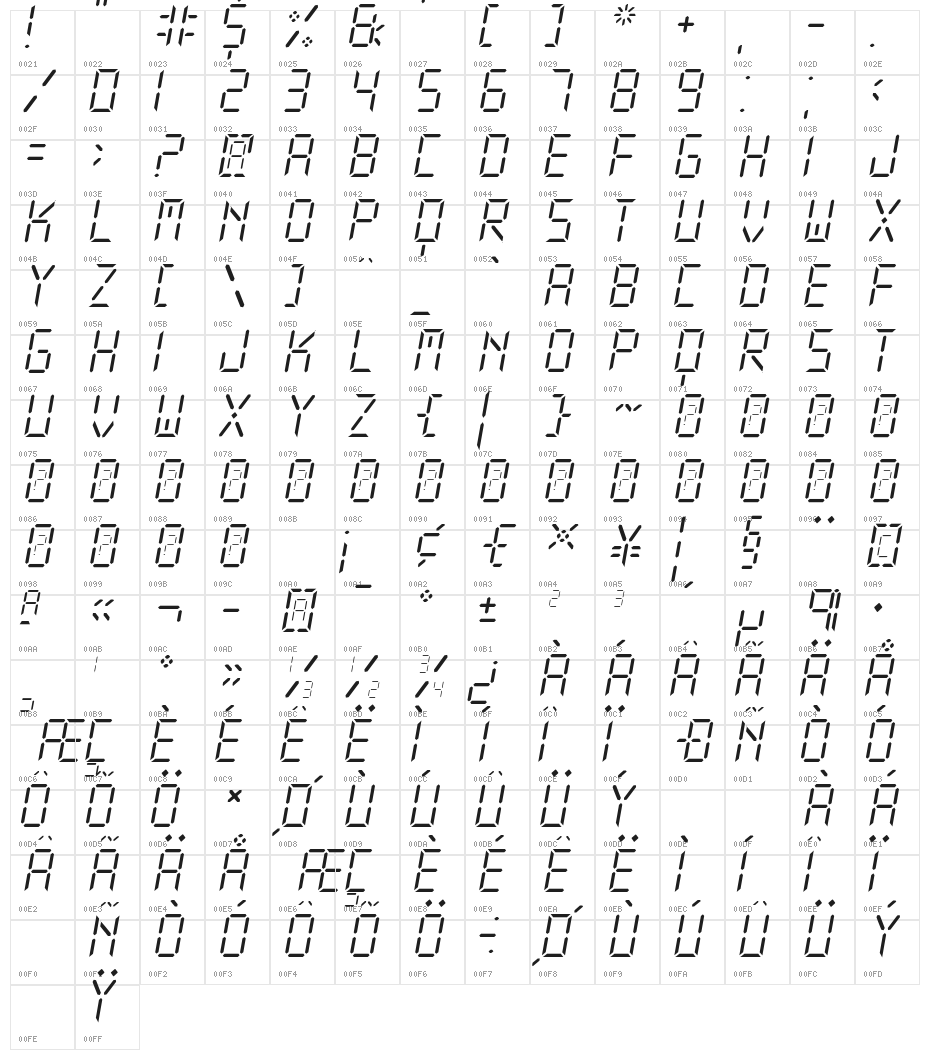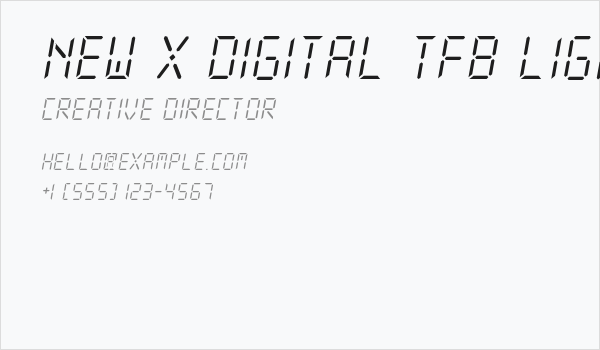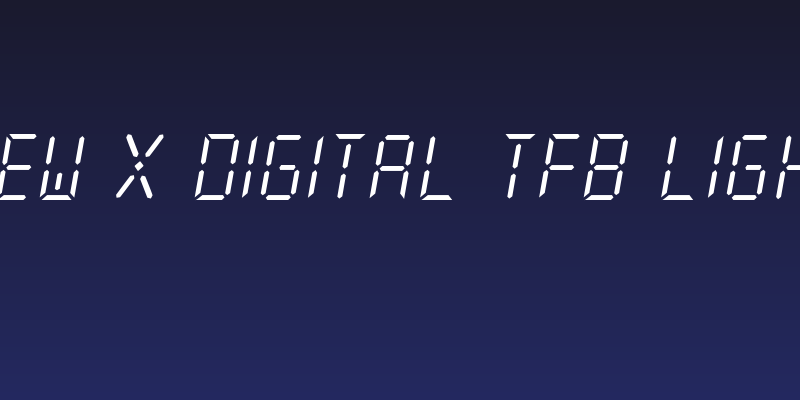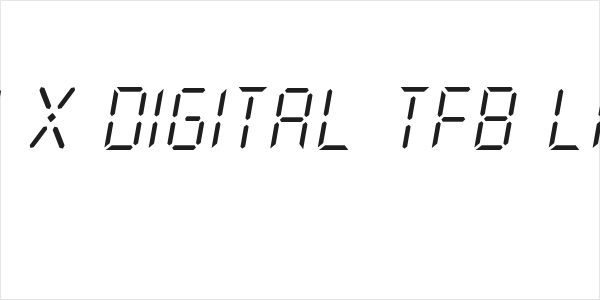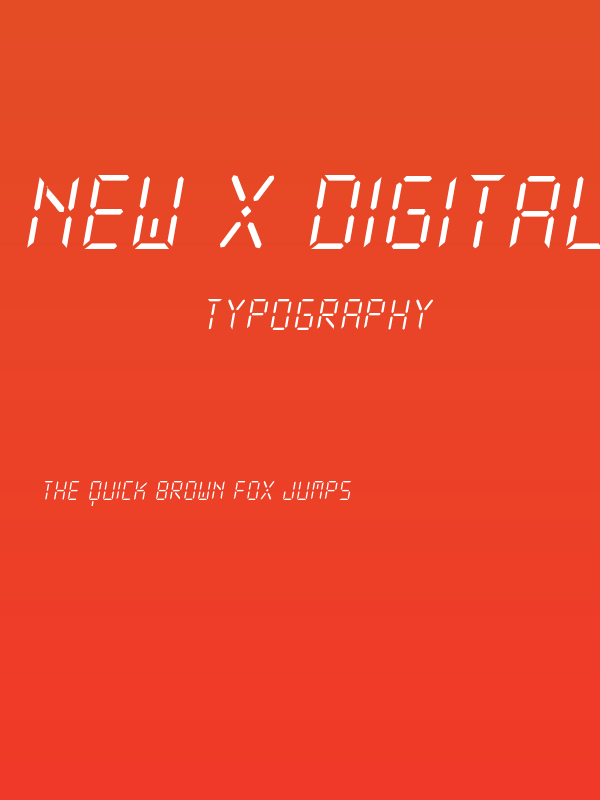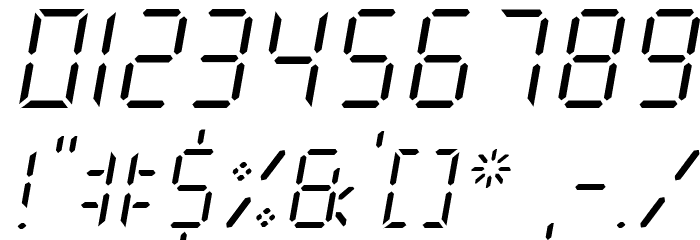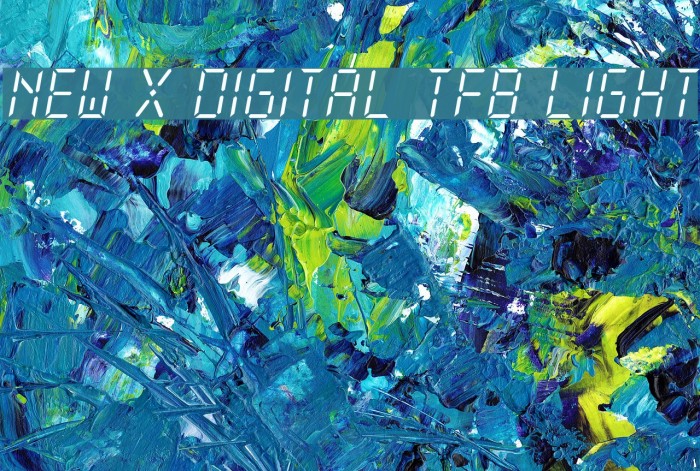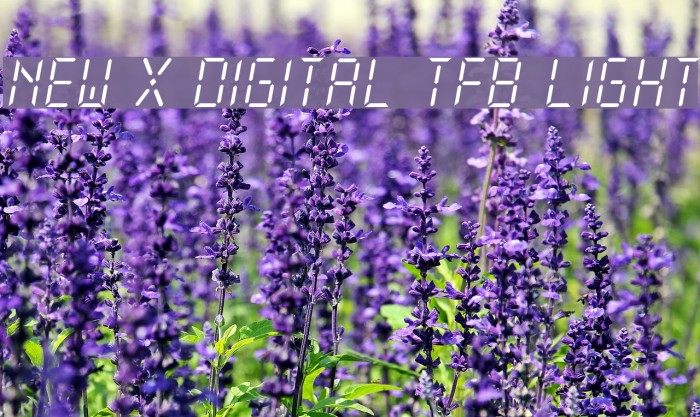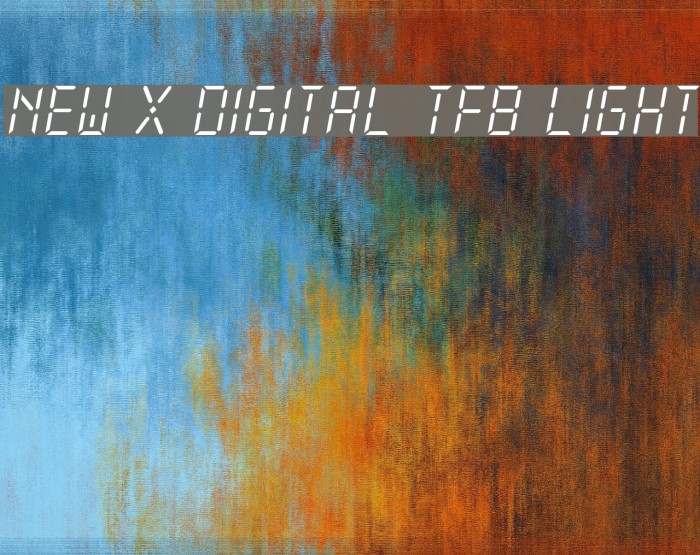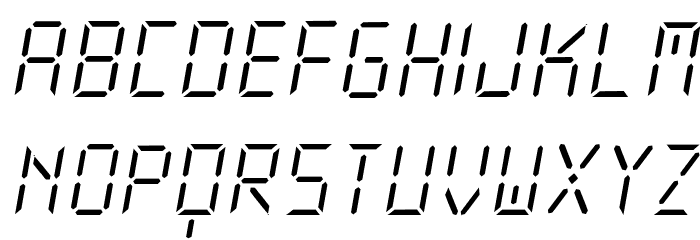
New X Digital tfb Light Font
This font features a digital, futuristic style reminiscent of LED or LCD displays. Each character is composed of distinct segments, creating a geometric and angular appearance. The uppercase and lowercase letters maintain a consistent height, contributing to a uniform look. The numerals and special characters follow the same segmented design, enhancing the cohesive digital theme. The font's structure is clean and precise, making it suitable for modern and tech-oriented designs. Its unique style captures attention while maintaining readability, ideal for digital displays or themed projects.
| Proposed Projects | Ideal for digital displays, tech-themed posters, video game interfaces, and modern branding. |